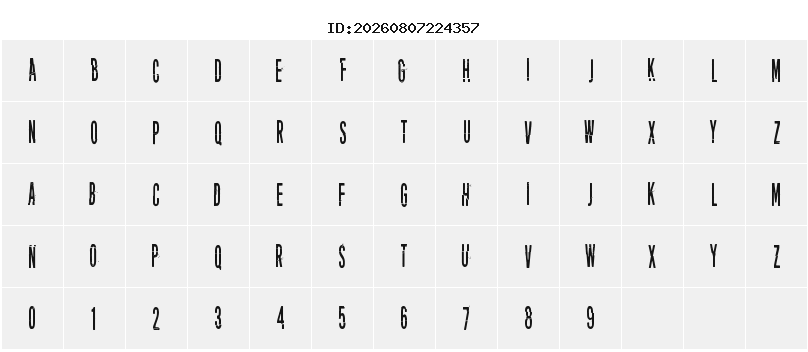
• Font Name: Puolelta toiselle
• Full Font Name: Puolelta toiselle
About Puolelta toiselle.ttf
Puolelta toiselle.ttf is a modern, elegant sans-serif font designed for ultimate readability and visual harmony. Perfect for branding, headlines, web design, and print materials.